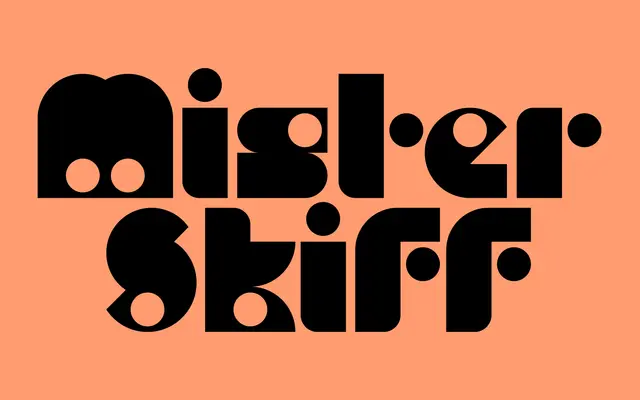
BD Pipe
Type Different · 2006
A single-weight geometric grotesque from Büro Destruct's studio, built around the circular pipe-hole pictogram that appeared across several of their design works.
Released in 2006, BD Pipe takes a geometric grotesque skeleton and punches circular holes through its letterforms, referencing the pipe pictogram Büro Destruct used across multiple studio projects. It comes in one weight only and covers a broad range of Latin-based languages. Suited to display and branding contexts where a playful, studio-specific visual joke is the point.
A single-weight novelty geometric grotesque built around circular hole pictograms from Büro Destruct's pipe motif, making it a display typeface unsuitable for running text.